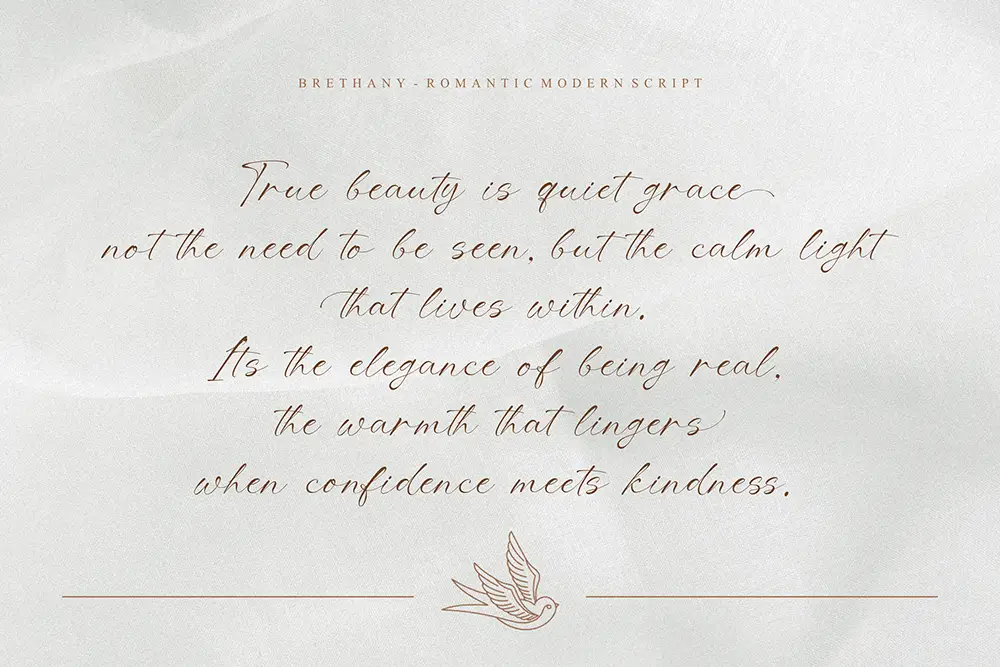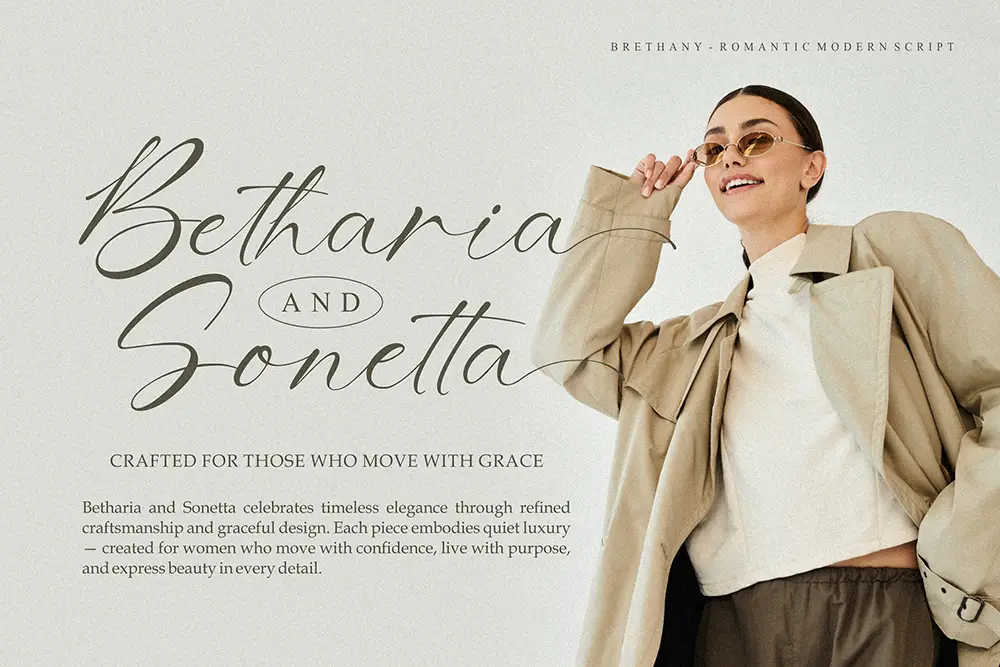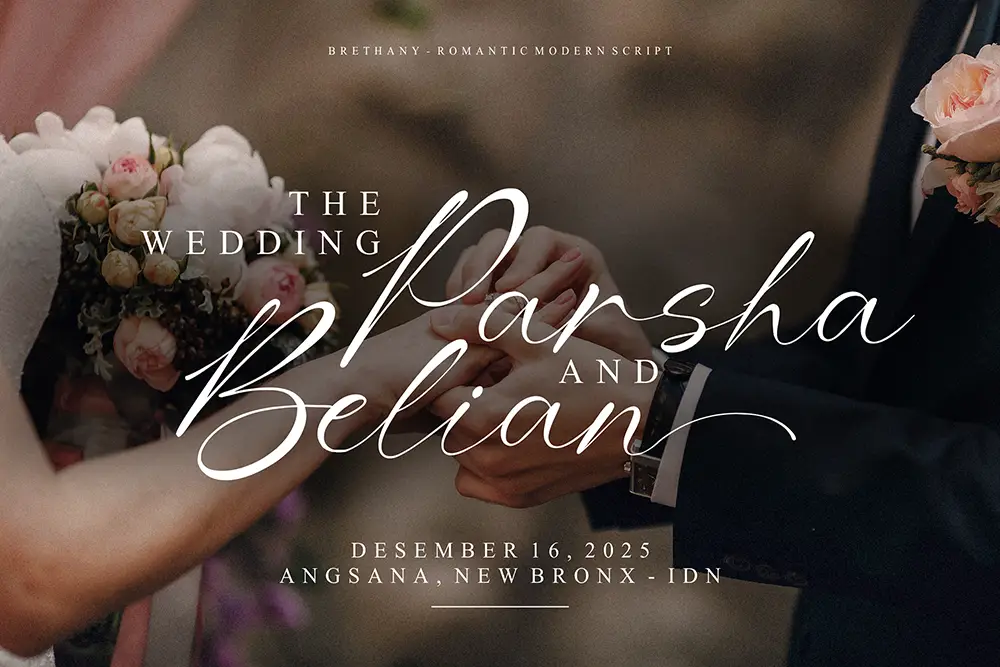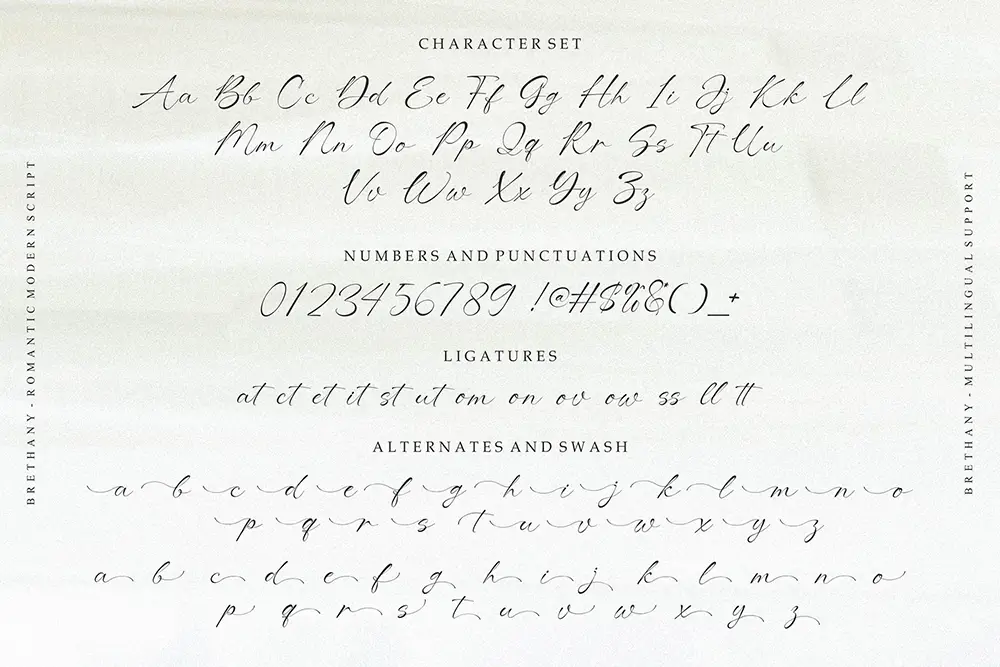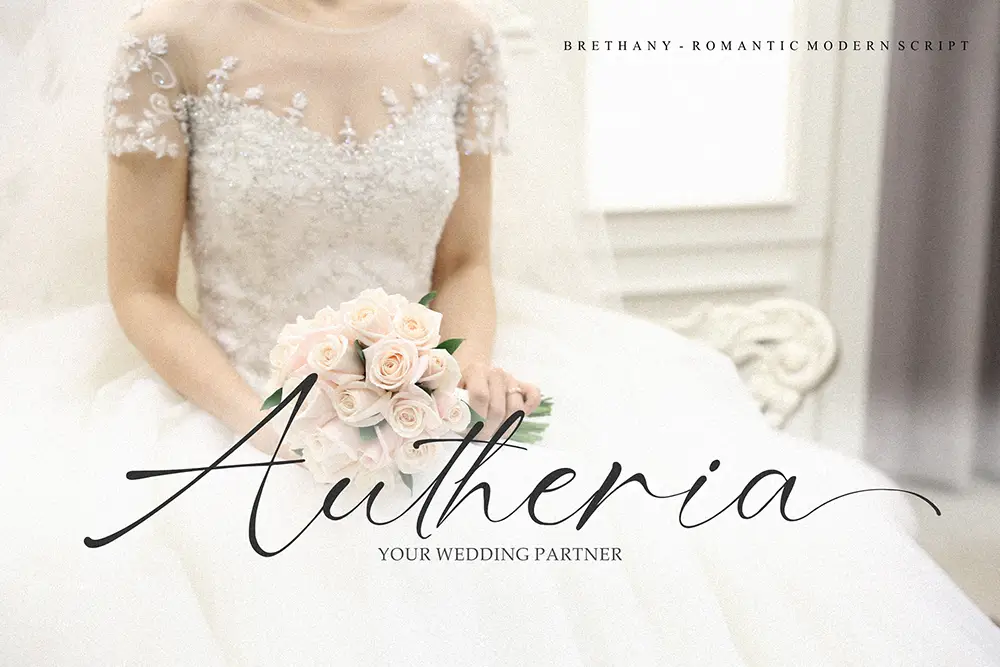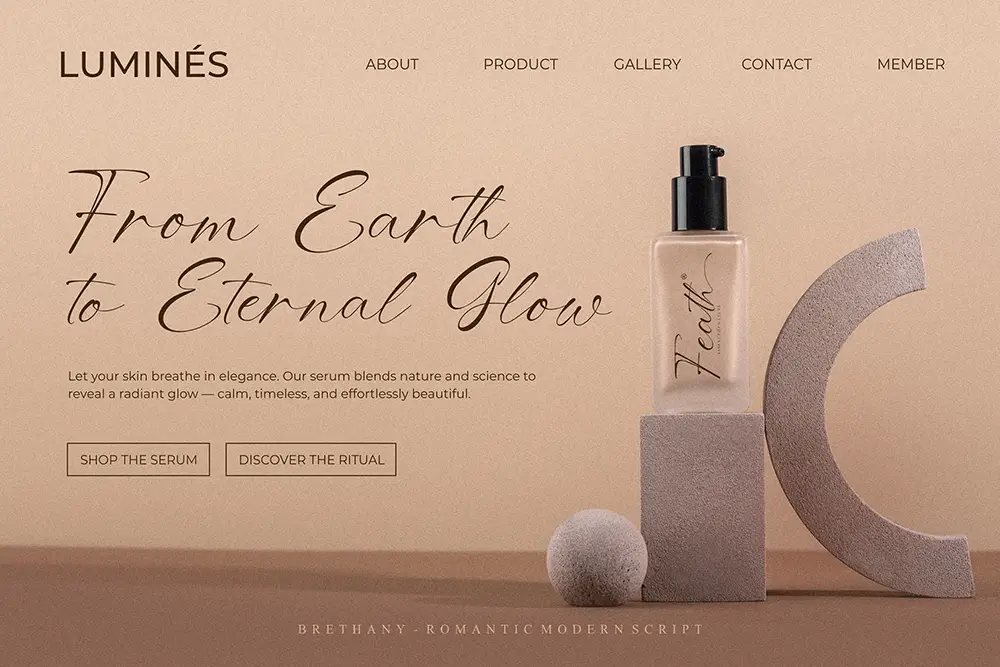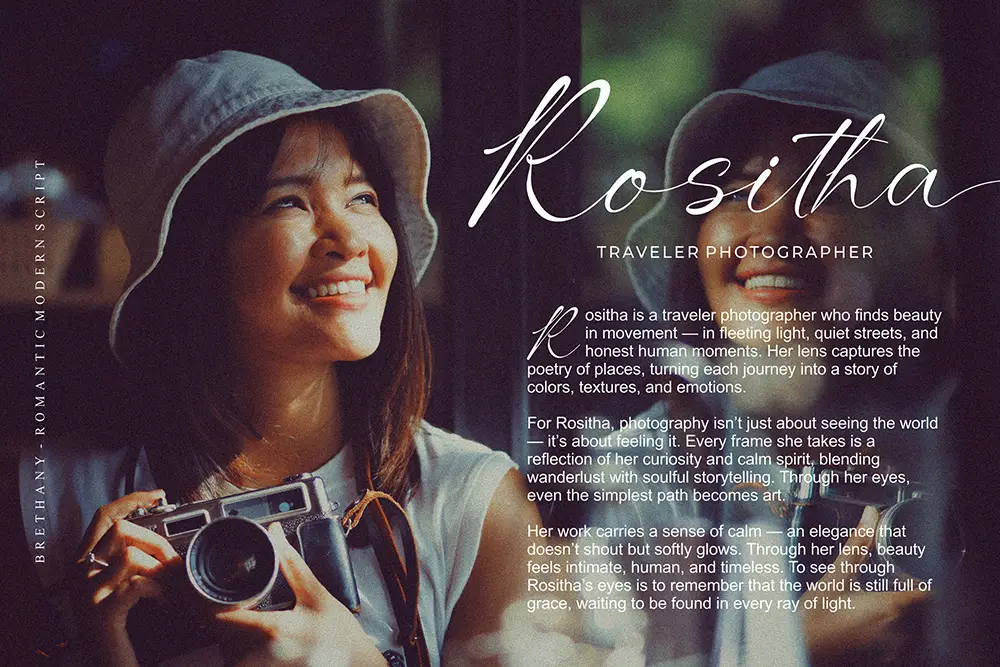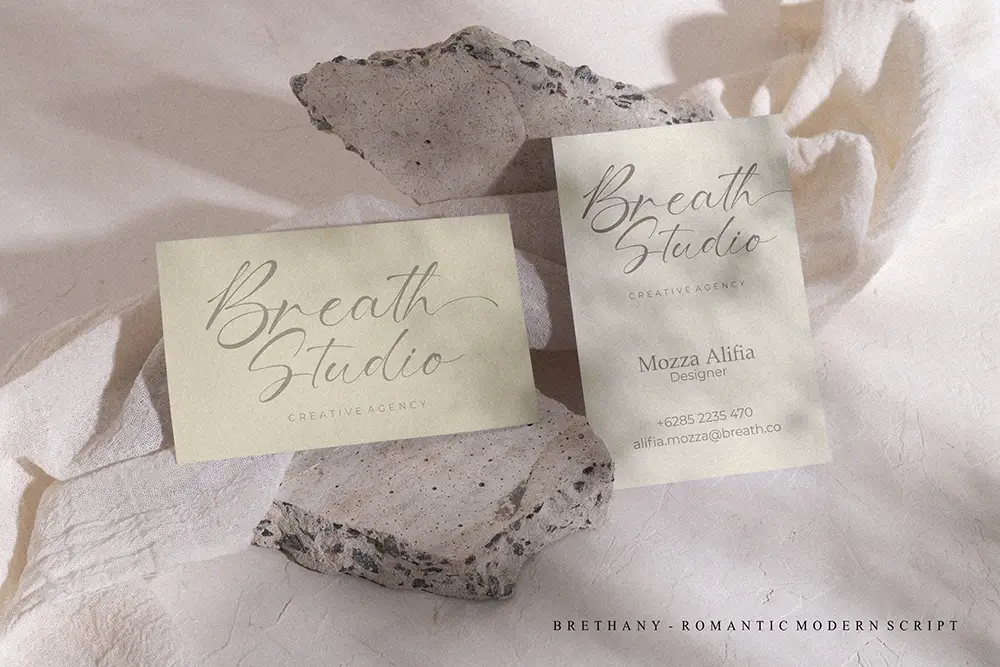
Brethany – Romantic Modern Script Font for Elegant Design
In design, typography is emotion turned into form. Brethany – Romantic Modern Script Font was crafted to express beauty, intimacy, and timeless sophistication. Every curve in its strokes whispers elegance, making it the perfect romantic font for wedding invitations, brand identities, greeting cards, and editorial design.
As a romantic modern script font, Brethany blends the softness of handwriting with the refinement of modern calligraphy. It’s ideal for designers who seek both delicacy and clarity in their creative projects.
Romantic Modern Script Font with Elegance and Heart
Brethany is more than just a pretty script font—it’s a story in every letter. This romantic modern script font features graceful ligatures and fluid swashes that bring your words to life. Designed for emotional impact, Brethany helps you create visuals that feel personal, elegant, and memorable.
Its balanced letter spacing and smooth connections ensure perfect readability, even in decorative contexts. Whether for wedding invitations, perfume packaging, or feminine branding, Brethany delivers timeless elegance in every project.
Key Features of Brethany – Romantic Modern Script Font
Designers love versatility, and Brethany offers just that. Here’s what you’ll get when you add this romantic modern script font to your library:
• Uppercase & Lowercase: Complete alphabet set for flexible use
• Numbers & Punctuation: Perfect for cohesive branding and titles
• Ligatures & Alternates: Create natural handwritten flow
• Swash Variants: Add decorative beauty to your compositions
• Multilingual Support: Extended Latin characters for global use
• Romantic Modern Design: Perfect for invitations, logos, and luxury branding
Why Designers Love Brethany
Creative professionals are drawn to Brethany because it captures the soul of romantic design with a modern twist. Here’s why this romantic modern script font is a designer favorite:
• Expressive Elegance: Every stroke is designed to evoke emotion.
• Flawless Flow: Ligatures and alternates connect seamlessly for a handwritten feel.
• Premium Look: Perfect for branding luxury goods, weddings, and editorials.
• Pairing Ready: Works beautifully with serif companions for elegant contrast.
Brethany for Wedding Invitations and Romantic Projects
Nothing says “love” like beautiful typography. Brethany’s soft swashes and calligraphic rhythm make it the perfect romantic modern script font for wedding invitations, vow books, and event stationery.
Its elegant letterforms carry an emotional warmth that enhances every romantic message. The ligatures connect words naturally, giving your design a handwritten charm that feels heartfelt and authentic.
Brethany for Branding and Editorial Design
For luxury brands and editorial layouts, Brethany offers an ideal blend of modern elegance and romantic allure. Use this romantic modern script font for beauty logos, perfume labels, magazine titles, or boutique signage.
When paired with clean serif fonts like Locrian or Kastroz, it creates a high-end, editorial look—perfect for designers aiming to blend sophistication with femininity.
Typography That Speaks Emotion
Typography is more than words—it’s visual poetry. Brethany’s graceful swashes and ligatures make every design feel intentional and emotional. As a romantic modern script font, it helps your audience connect instantly with your message.
Use it to design quotes, packaging, or social media posts that radiate love, creativity, and sophistication.
• Font Name: Brethany – Romantic Modern Script Font
• Character Set: Uppercase, Lowercase, Numbers, Punctuations
• Ligatures, Alternates, Swash: Yes
• Multilingual Support: Yes
• Category: Romantic Modern Script Font
• Best Uses: Wedding Invitations, Logos, Packaging, Branding, Editorial, Greeting Cards
Why Brethany is a Must-Have Romantic Font
Designers who use Brethany know they’re investing in emotion. This romantic modern script font captures the balance of handwritten beauty and digital precision. It’s timeless, elegant, and versatile—suitable for both heartfelt personal projects and luxurious professional branding.